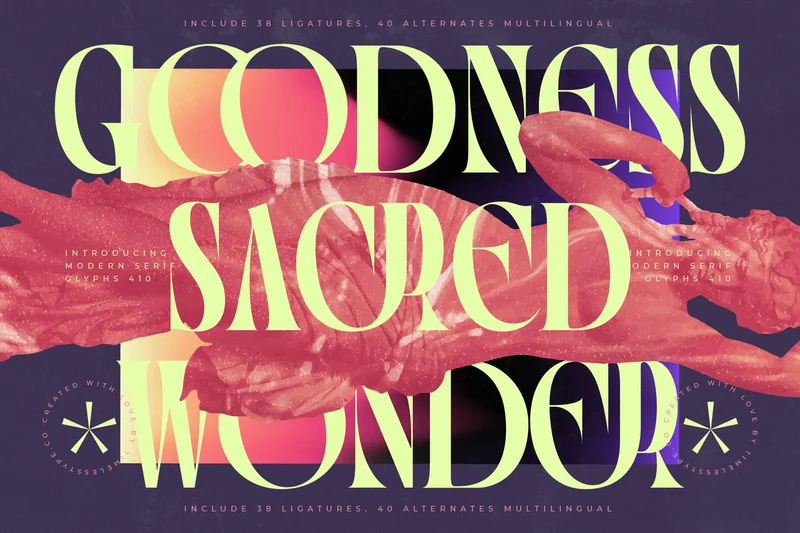
Goodness Sacred Wonder
Hi ladies & gentlemen, this is one of our fonts suitable to complement your digital and printed creative products. This font is perfect for posters, social media posts, branding, personal projects, etc.